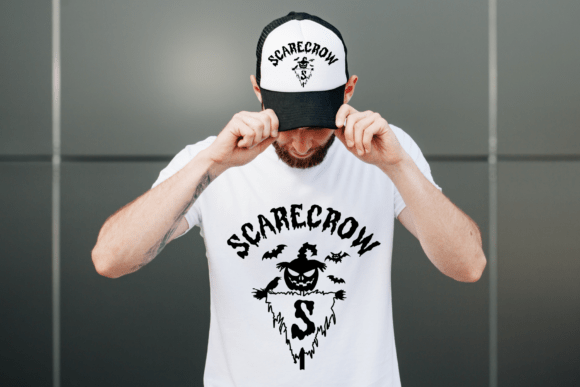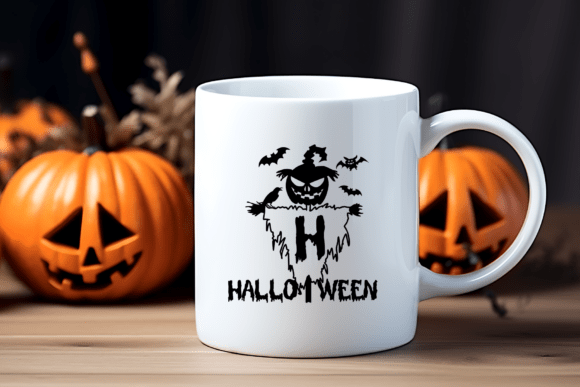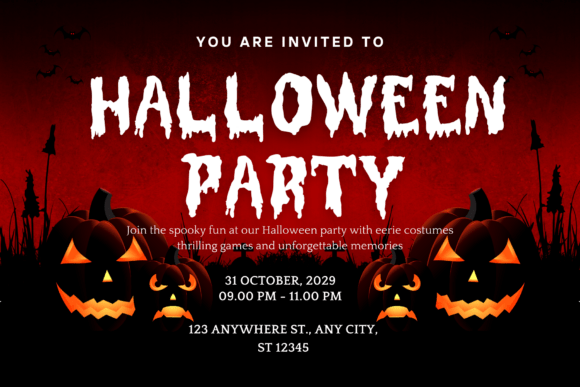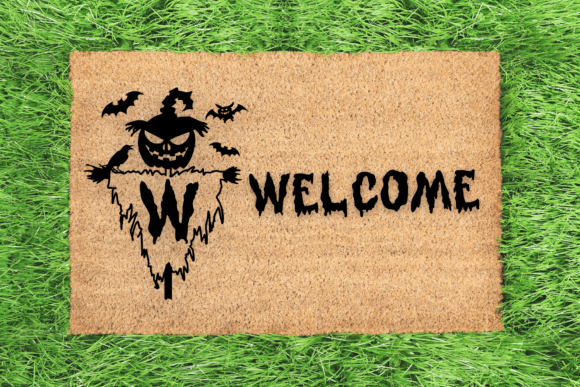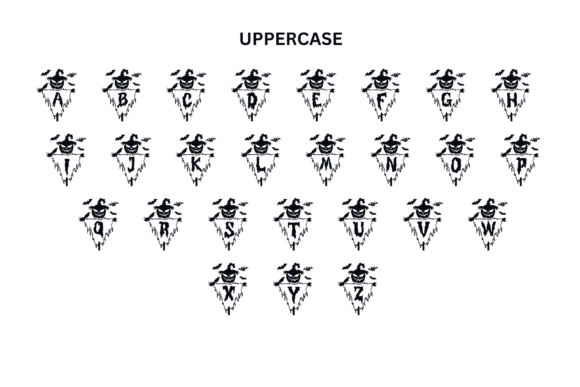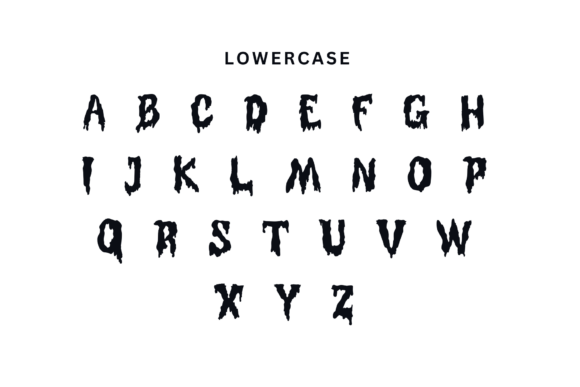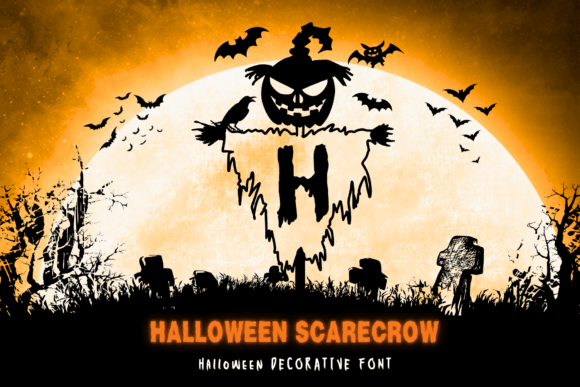
Unleash the Spookiness: Introducing the Halloween Scarecrow Font
As the spookiest time of the year approaches, designers and crafters are on the lookout for the perfect elements to make their Halloween creations stand out. If you’re searching for a font that captures the eerie essence of the season, look no further than the Halloween Scarecrow Font. This spooky and decorative font is specifically designed to bring a scary yet fun touch to your projects, making your Halloween designs unforgettable.
Inspiration from the Haunted Nights
The Halloween Scarecrow Font draws inspiration from the iconic symbols of Halloween: scarecrows, pumpkins, bats, and haunted nights. Each letter is carefully crafted to evoke the mysterious and eerie atmosphere of the season. The font’s design is reminiscent of old, rustic scarecrows standing guard in cornfields, pumpkins glowing with an otherworldly light, and bats flying across a full moon. This font is the perfect blend of spooky and festive, making it ideal for a wide range of Halloween-themed projects.
The Halloween Scarecrow Font is incredibly versatile and can be used in various creative projects. Whether you’re designing:
- Posters: Create eye-catching Halloween posters that will grab attention and set the tone for a spooktacular event.
- Invitations: Design eerie and inviting Halloween party invitations that will leave your guests in anticipation.
- Crafts: Add a personal touch to your Halloween crafts, such as DIY decorations, cards, or gift tags.
- Party Decorations: Use the font to create spooky banners, garlands, or signs that will transform your party space into a haunted haven.
- Seasonal Designs: Incorporate the font into your seasonal designs, such as social media graphics, blog posts, or email newsletters, to create a cohesive and festive look.
What Makes the Halloween Scarecrow Font Special?
This unique font offers several features that make it a standout choice for your Halloween projects:
- Unique Design: The font’s design is carefully crafted to evoke the spirit of Halloween, making it a one-of-a-kind addition to your design toolkit.
- High-Quality: The font is created with high-quality craftsmanship, ensuring that it looks great in various sizes and resolutions.
- Eerie yet Fun: The font strikes the perfect balance between spooky and playful, making it suitable for a wide range of Halloween-themed projects.
Tips for Using the Halloween Scarecrow Font
To get the most out of the Halloween Scarecrow Font, consider the following tips:
- Experiment with Sizes: Play with different font sizes to create visual interest and hierarchy in your designs.
- Combine with Images: Pair the font with Halloween-themed images, such as pumpkins, ghosts, or bats, to create a cohesive look.
- Use in Combination with Other Fonts: Mix the Halloween Scarecrow Font with other fonts to create a unique and eye-catching design.
The Halloween Scarecrow Font is a must-have for designers and crafters looking to add a spooky and fun touch to their Halloween creations. With its unique design, high-quality craftsmanship, and eerie yet playful vibe, this font is perfect for a wide range of Halloween-themed projects. Whether you’re designing posters, invitations, crafts, or party decorations, the Halloween Scarecrow Font is sure to make your creations unforgettable. So, unleash the spookiness and get creative with this amazing font!